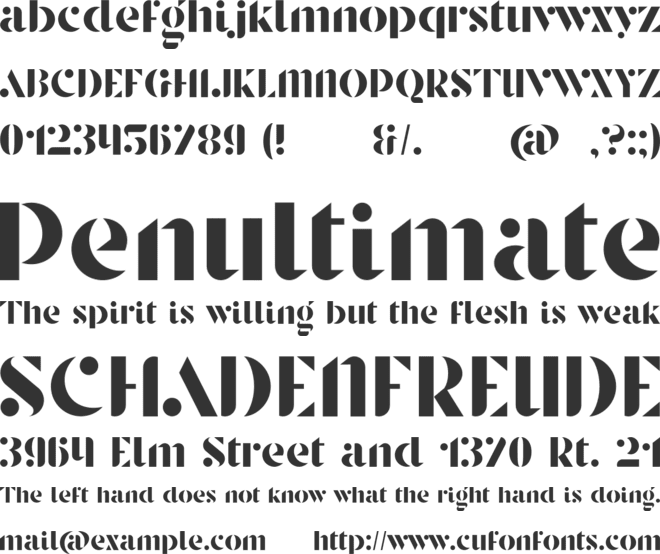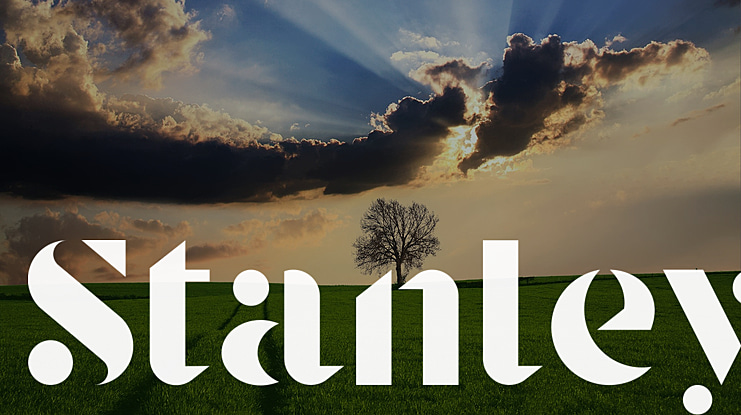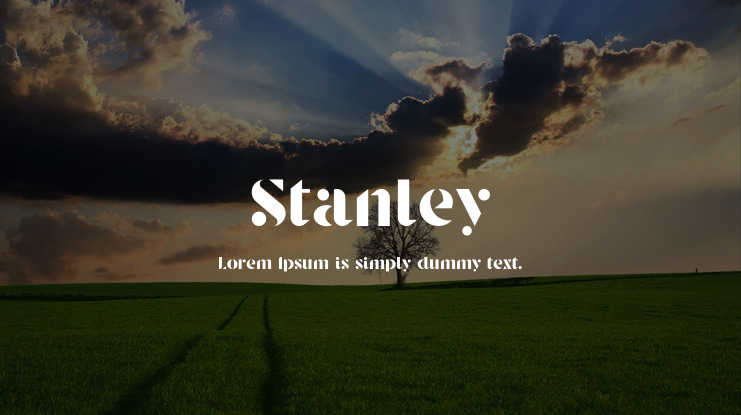
Stanley Font
Jérémie Gauthier
Stanley is an elegant display typeface that combines rounded and rectangular forms. This font is perfect for branding, posters, letterhead, packaging designs and more.